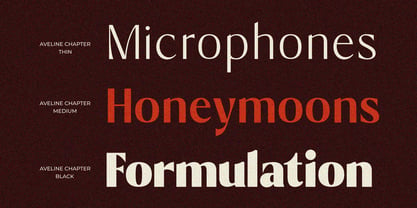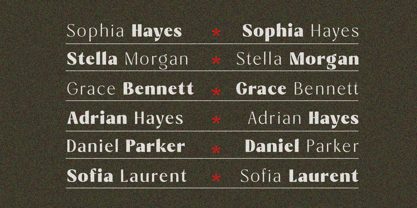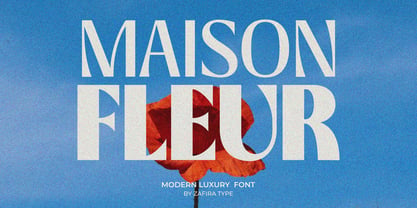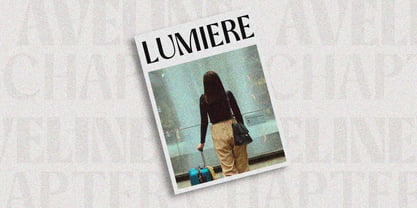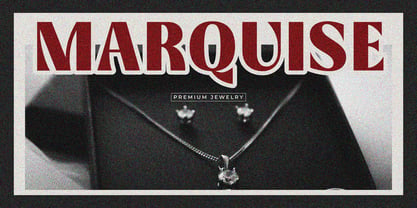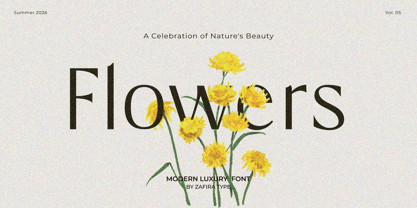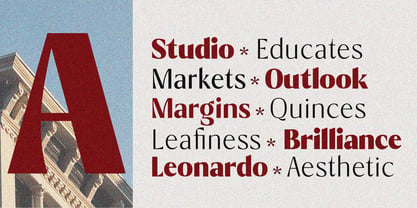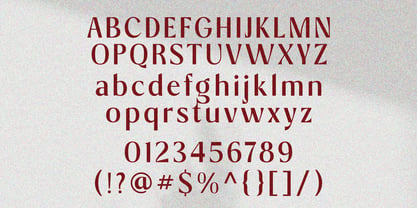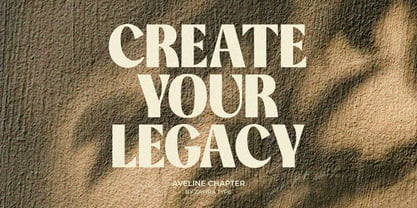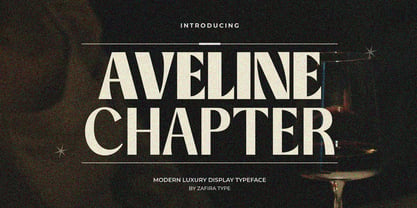
Zt Aveline Chapter
von Zafira Type
Die Schriftfamilie Zt Aveline Chapter wurde von Su Hirno entworfen und von Zafira Type veröffentlicht. Zt Aveline Chapter enthält 9 Stile. Mehr über diese Familie
Zt. Aveline Chapter is a modern display sans serif font family designed with clean lines, balanced proportions, and a refined contemporary style. Featuring 9 carefully crafted weights, from Thin to Black, it offers the flexibility to create strong visual hierarchy across a wide range of design projects.
Perfect for branding, logos, packaging, editorials, posters, websites, and social media, Aveline Chapter delivers a clean, professional, and distinctive look that enhances any modern visual identity.
Designer: Su Hirno
Foundry: Zafira Type